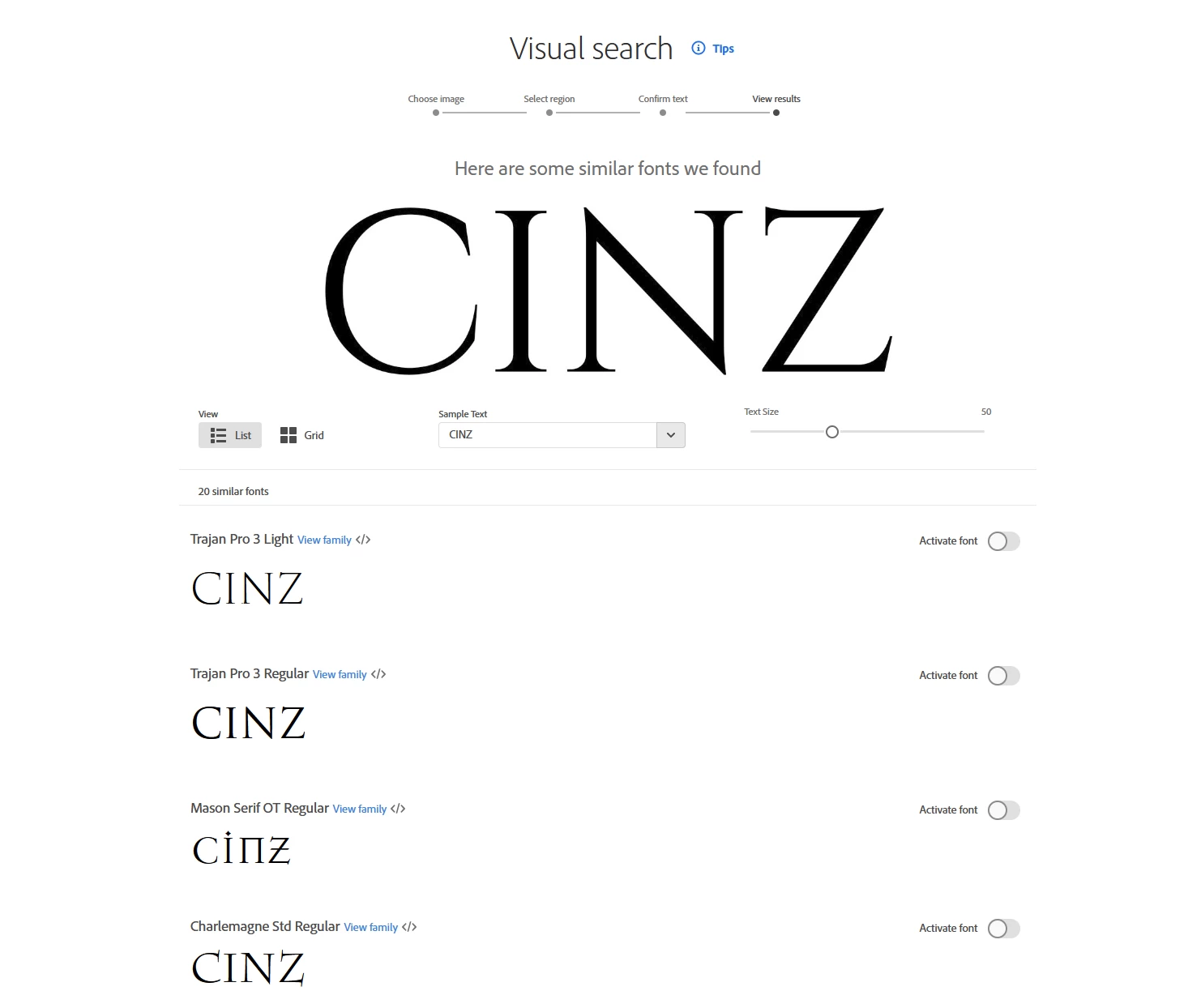
What is the nearest Adobe font to Cinzel Decorative?
I'd like a font for a fantasy book cover and would use Cinzel Decorative if I wasn't nervous about OFL licenses. The long tails to the letters perfectly signal the genre I'm dealing with.
I can't find anything like it in Adobe Fonts. Are there really no fonts with capitals with these decorative tails?
Following @Tarun Saini answer, here is what Adobe Fonts visual search tells me.
Trajan seems a very good contender
Many thanks - that search facility is very useful to know about. I think that what it establishes in this case is that, while Trajan is a good equivalent to Cinzel, Adobe has nothing like Cinzel Decorative, which would be a good gap for Adobe to fill!
Thanks for reaching out. Here is something you can try, as Adobe Fonts helps you find fonts matching the text used in images. You can select a font displayed in the search results to activate it immediately.